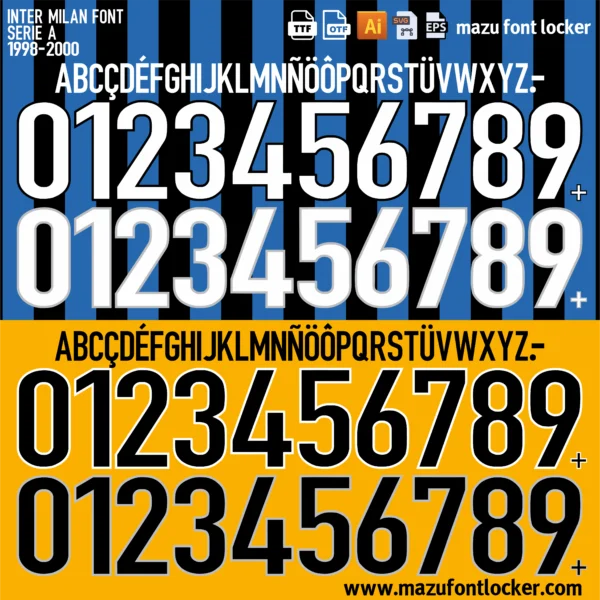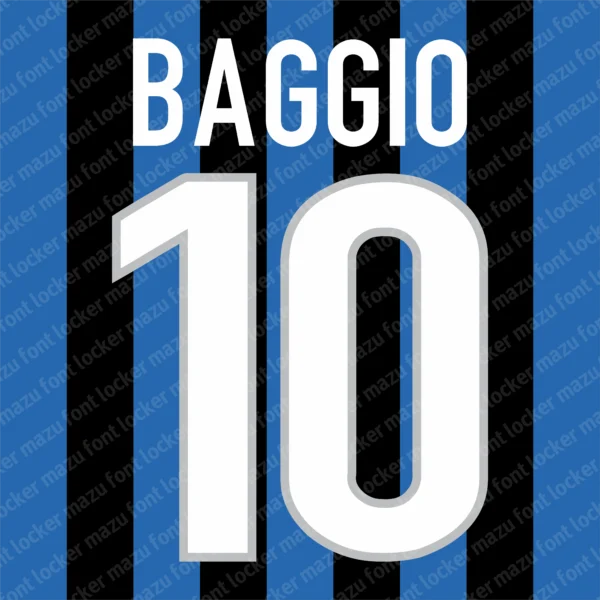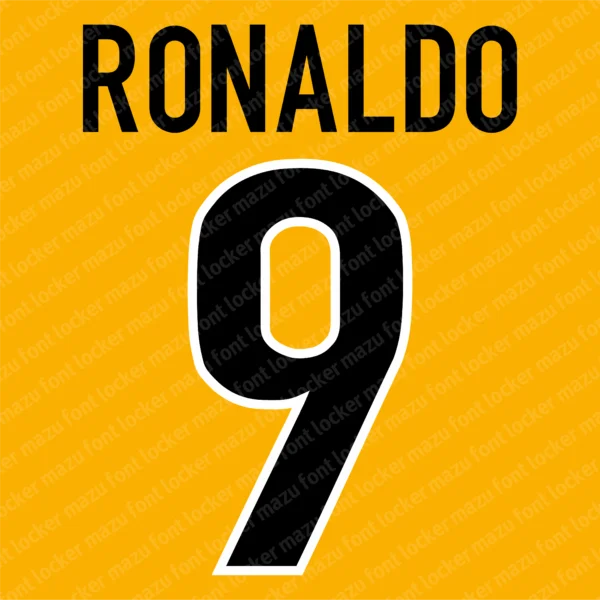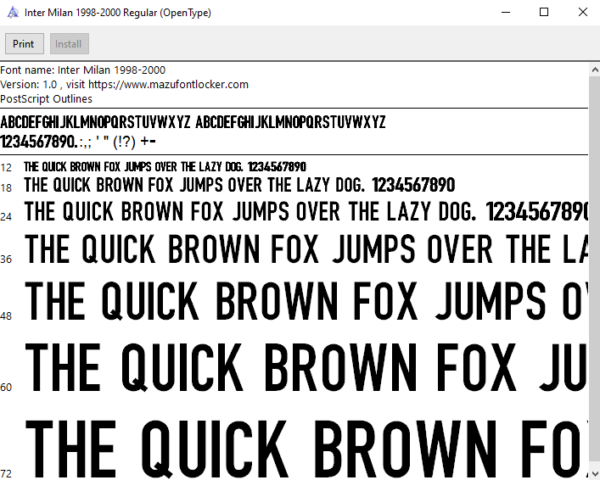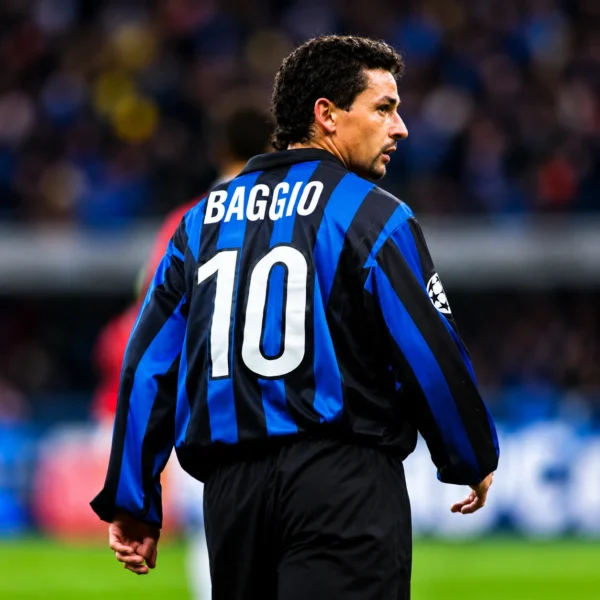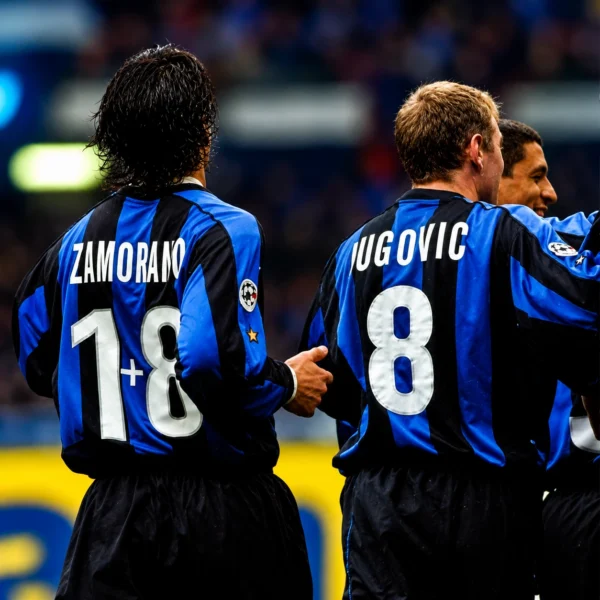
Inter Milan 1998-2000 Font Vector – Incredible Nostalgic Nerazzurri Legend
Channeling the fearless Inter spirit with raw Italian football passion, it delivers a powerful fusion of historic club heritage and timeless Serie A dominance. Perfect for premium jersey mockups, football designs, and collector-worthy Inter Milan 1998-2000 art.
Inter Milan 1998-2000 Font Vector – Classic Nerazzurri Typeface
The Inter Milan 1998-2000 Font Vector is a premium typeface that faithfully recreates the iconic lettering from Inter Milan’s legendary 1998-2000 jerseys. This vector font kit captures the bold, elegant athletic style that defined one of the most memorable eras in Inter’s modern history.
Designed for football designers, graphic artists, and passionate Inter fans, the Inter Milan 1998-2000 Font Vector delivers authentic vintage aesthetics perfect for retro jersey mockups, fan merchandise, posters, social media content, and nostalgic football campaigns.
Why Choose Inter Milan 1998-2000 Font Vector
This font set is highly valued for its historical accuracy and premium quality. Every letter and number has been meticulously recreated to match the original typography used on Inter’s 1998-2000 shirts. It perfectly blends classic Italian football heritage with modern design usability.
The letterforms feature bold, athletic proportions with a slightly condensed and dynamic stance. The strong, clean strokes deliver powerful visual presence while maintaining excellent readability — ideal for both large squad numbers and detailed graphic applications.
The numerals showcase classic late-90s football styling with sharp contours, balanced weight, and authentic athletic proportions, ensuring outstanding results across print and digital media.
- Full uppercase A–Z and numbers 0–9 in the official 1998-2000 Inter style
- Multilingual Latin support with diacritics
- Includes precise crest placement used under player numbers on the 1998-2000 kits
Inter Milan 1998-2000 Classic Era
The period between 1998 and 2000 marked an exciting and stylish chapter for Inter Milan. Under managers Luigi Simoni and Marcello Lippi, the Nerazzurri assembled a star-studded squad featuring legends such as Ronaldo Nazário (O Fenômeno), Roberto Baggio, Christian Vieri, Javier Zanetti, and Iván Zamorano.
In 1998, Inter lifted the UEFA Cup after a dramatic campaign, defeating Lazio in the final. The team wore their iconic blue and black striped jerseys with elegant typography that perfectly represented the club’s rich heritage. This era is remembered for breathtaking football, massive attacking talent, and unforgettable moments at the San Siro. Although domestic silverware remained elusive, the attacking flair and global appeal of this Inter side left a lasting impression on football fans worldwide.